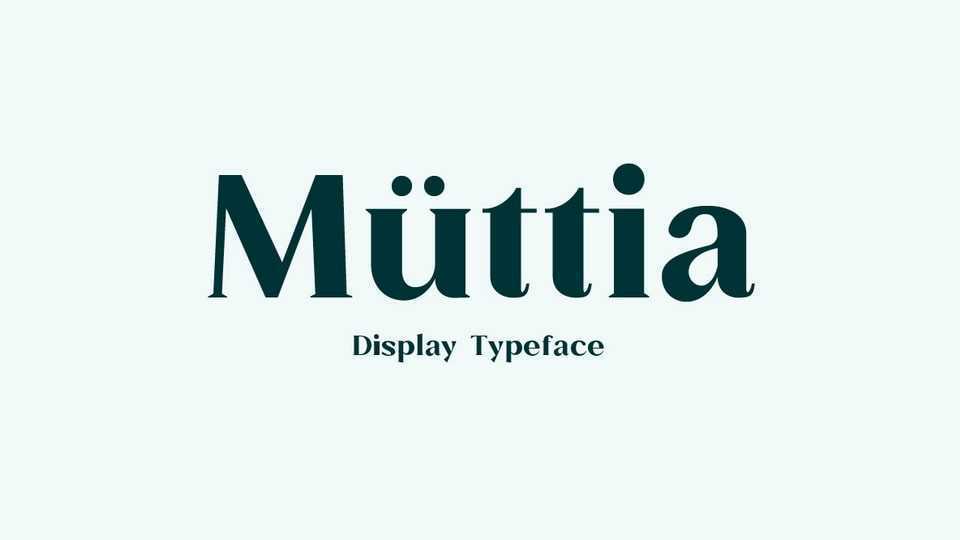
Download Muttia font, a beautifully distinctive serif typeface that will add instant elegance to any branding, advertising, logo, packaging, title, or headline.
Designer: Yukita Creative